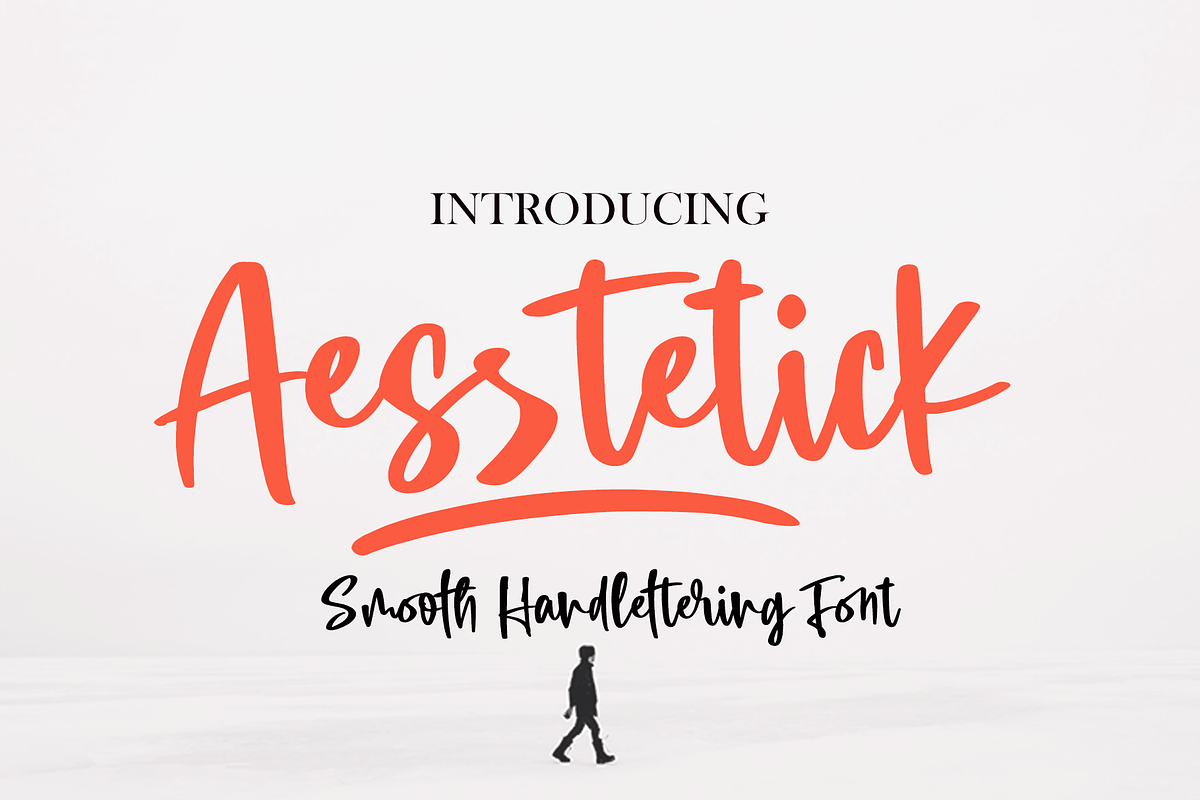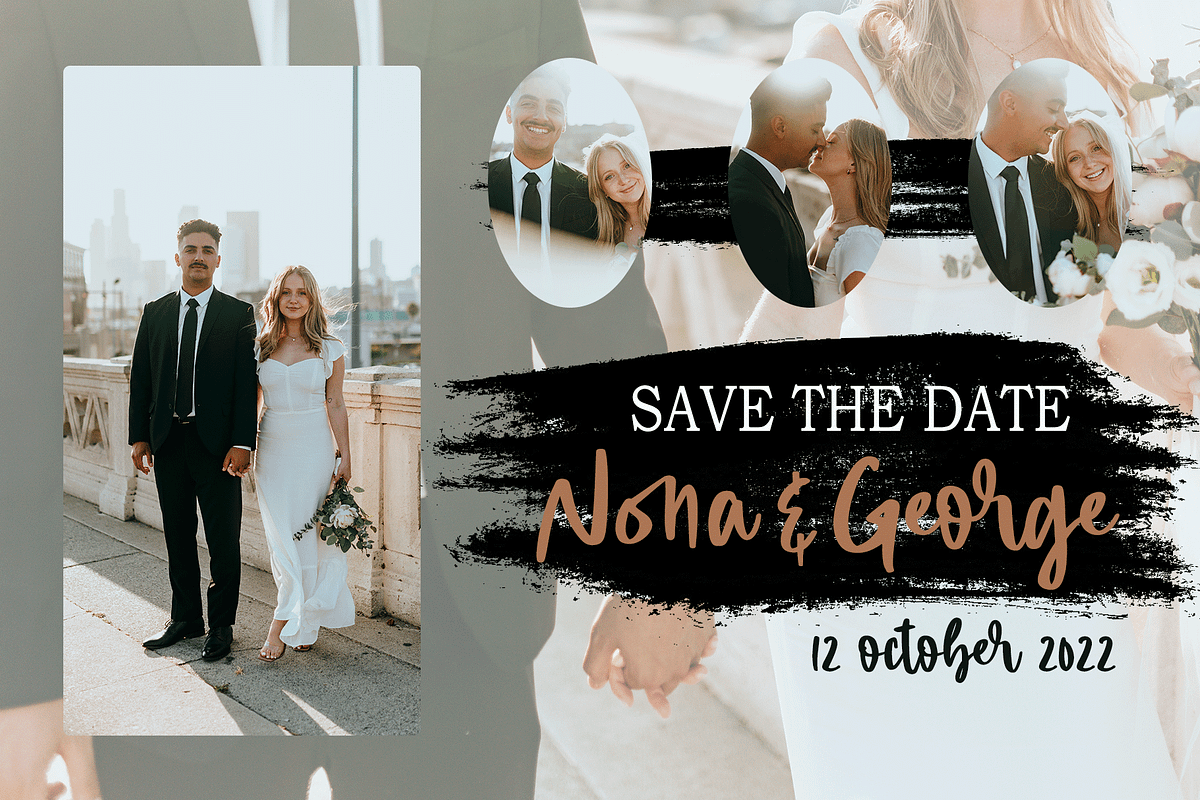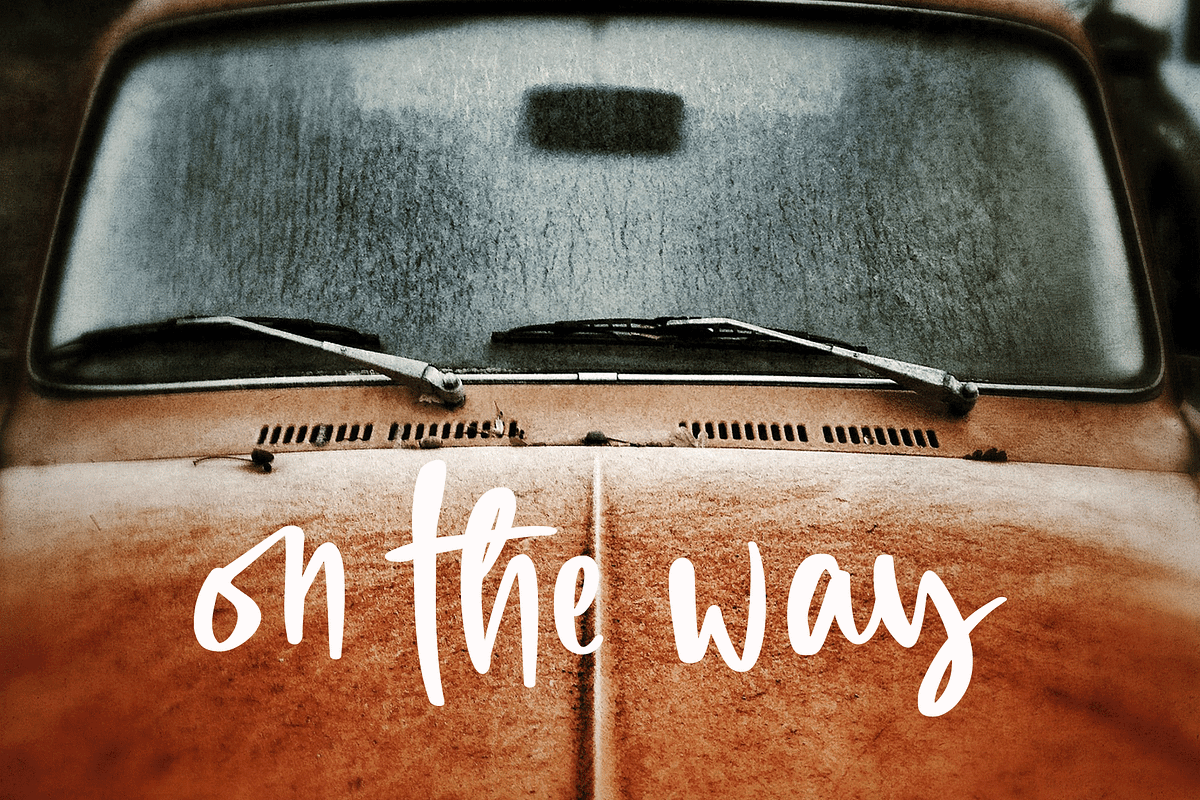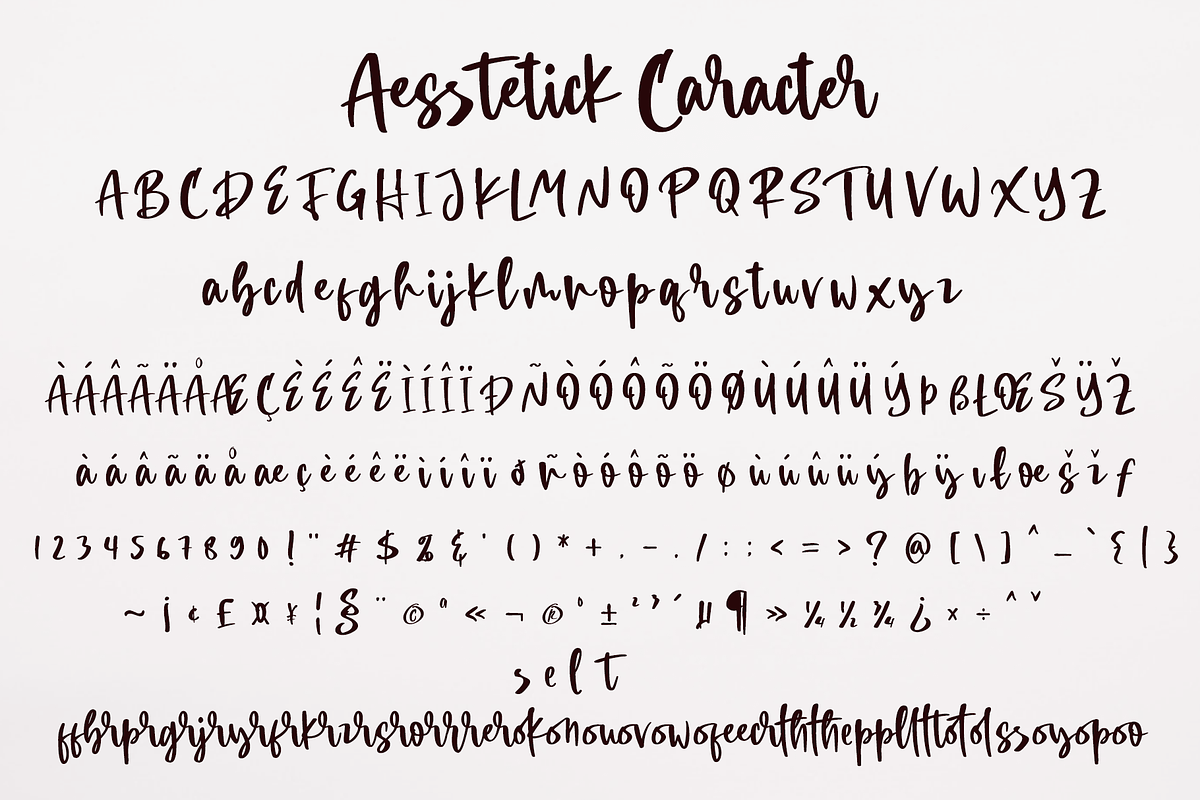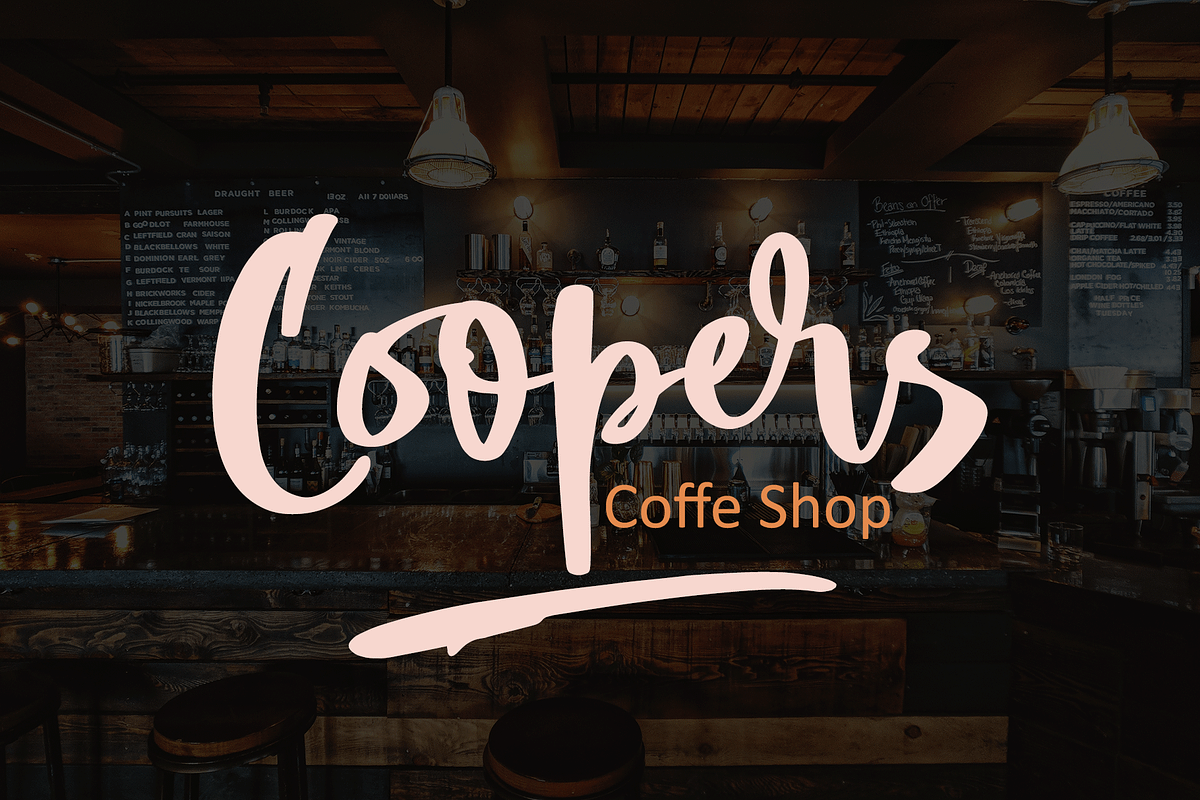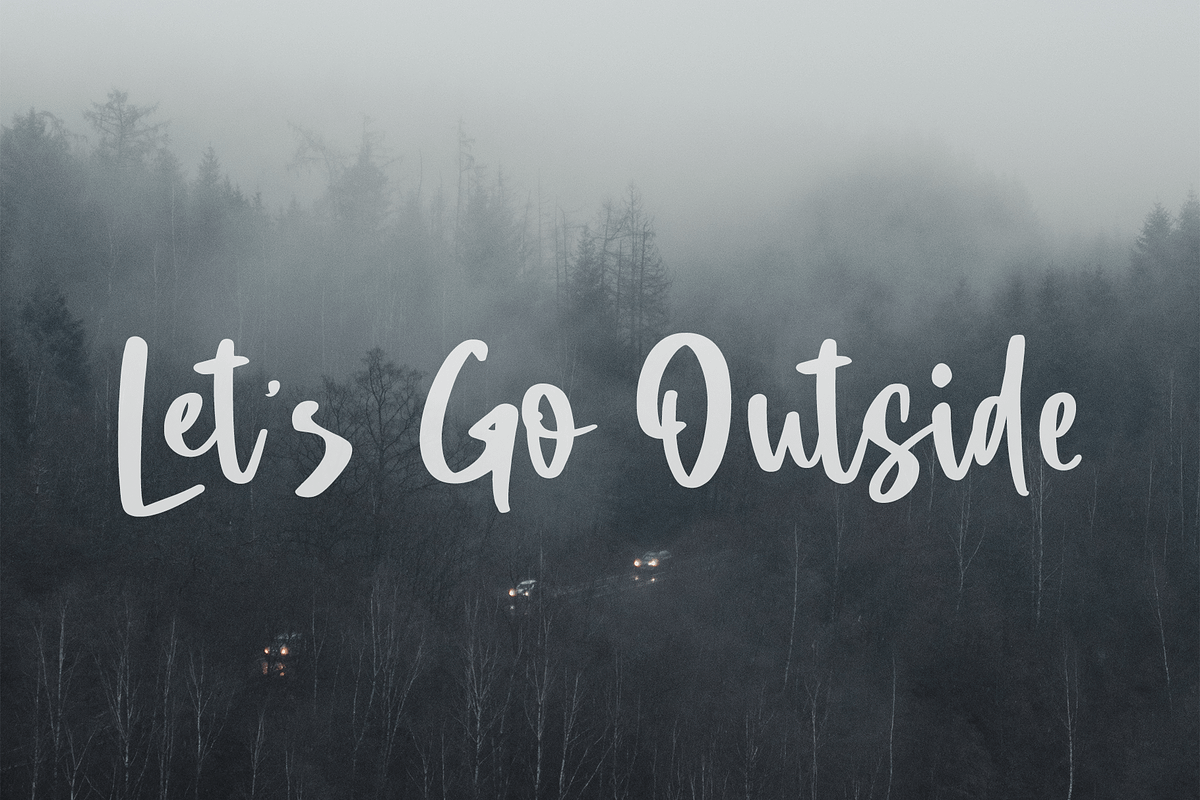
Aesstetick
INTRODUCING
Aesstetick is handwritten font with a modern Brush feel.
Aesstetick is perfect for modern projects, headings, blogs, logos, brandings, web designe, card, coffe shop, t-shirt, invitations and more!